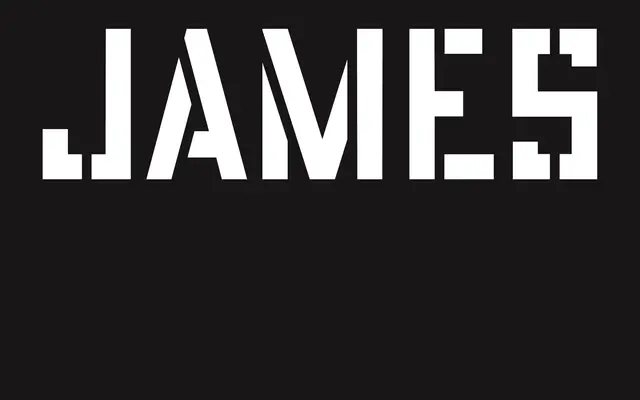
A stencil family drawn from protest signs carried during demonstrations that contributed to Title VII of the Civil Rights Act, designed by Vocal Type as part of their ongoing project to recover Black typographic history.
JAMES takes its reference from signage used during CORE's 1963 campaign against Jefferson Bank and Trust in St. Louis, a seven-month protest against discriminatory hiring practices that became the largest civil rights struggle in the city's history. Vocal Type's practice of grounding typefaces in specific moments of Black American history gives JAMES a documentary weight beyond its stencil letterforms. The result sits naturally in editorial, campaign and commemorative contexts where historical specificity matters.
JAMES is explicitly described as a stencil font family, placing it firmly in the display category with a stencil subcategory, designed for expressive headline and signage use.